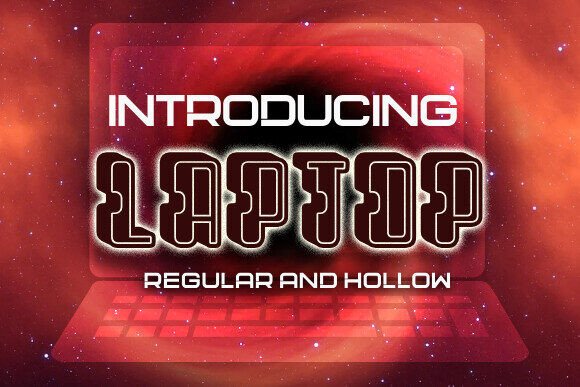
Transform Your Visuals with Laptop: The Ultimate 3D Font for Bold Designs
In the crowded landscape of digital and print media, typography is often the first element that captures a viewer's attention. While standard typefaces serve their purpose in body text, headlines and branding require something more dynamic to stand out. This is where Laptop comes into play. As an awesome 3D font, Laptop offers a unique blend of retro-futuristic charm and modern solidity, making it an ideal choice for designers looking to elevate their projects. Whether you are crafting eye-catching posters, vibrant flyers, or custom t-shirts, this typeface brings a depth and texture that flat fonts simply cannot achieve.
The Distinctive Character of the Laptop Typeface
What sets Laptop apart from other three-dimensional typefaces is its specific aesthetic approach. Unlike generic 3D fonts that can sometimes look cartoonish or overly exaggerated, Laptop strikes a balance between industrial strength and playful creativity. The design features thick, blocky letterforms that appear to pop off the page, creating an immediate sense of volume. This visual weight makes it incredibly effective for short phrases, logos, and titles where impact is paramount.
The geometry of the font is carefully constructed to ensure legibility even when rendered in complex environments. The extrusion effects used in Laptop mimic the look of physical objects, giving the text a tangible quality. When you apply this font to a design, it feels less like a digital overlay and more like a physical object placed within the composition. This characteristic is particularly valuable in industries that rely on tactile imagery, such as gaming, streetwear, and tech marketing.
Why Depth Matters in Modern Typography
In a world dominated by screens, the illusion of depth has become a powerful tool for engagement. Flat design trends have evolved, and there is a renewed appreciation for skeuomorphic elements—designs that imitate real-world materials. Laptop fits perfectly into this resurgence. By adding shadows, highlights, and perspective, the font guides the eye and creates a focal point. It breaks the monotony of two-dimensional layouts, inviting the viewer to interact with the content on a deeper level.
Furthermore, the 3D nature of Laptop allows for creative lighting effects. Designers can manipulate how light hits the letters to convey different moods. A sharp, high-contrast lighting setup can make the font look aggressive and bold, suitable for action-oriented campaigns. Conversely, softer lighting can give the same font a more approachable, friendly vibe. This versatility ensures that Laptop is not limited to a single genre but can adapt to various brand identities.
Practical Applications: From Posters to Apparel
The true test of any typeface lies in its application across different mediums. Laptop shines in several key areas, proving itself to be a versatile asset in a designer's toolkit. Its robust structure holds up well regardless of the scale, making it suitable for everything from small social media graphics to large-scale billboards.
Creating Impactful Posters and Flyers
Posters and flyers are often the backbone of event promotion and local advertising. In these formats, the goal is to communicate a message instantly. Laptop excels here because its 3D form naturally draws the eye. Imagine a concert poster where the band name is rendered in Laptop, appearing to float above a gritty background. The dimensionality adds energy and excitement, suggesting that the event itself will be immersive and larger than life.
For flyers, the font works exceptionally well for headlines and call-to-action sections. Because the letters are so distinct, they remain readable even when printed on textured paper or viewed from a distance. Designers often pair Laptop with minimalistic backgrounds to let the typography take center stage. This approach reduces visual clutter while maximizing impact, ensuring that the most important information—the event date, location, or offer—is impossible to miss.
Elevating T-Shirt Designs
Apparel design presents a unique set of challenges. Text on fabric must look good when folded, stretched, and viewed from various angles. Laptop is an excellent choice for t-shirts because its bold strokes translate beautifully to screen printing and embroidery. The 3D effect gives the design a premium feel, moving away from the cheap look of simple vinyl transfers.
When used on t-shirts, Laptop can create a sense of movement and texture that mimics raised puff paint or embroidered patches. This is particularly popular in streetwear culture, where oversized, dimensional lettering is a staple. Designers can experiment with color gradients on the font to simulate metallic finishes, such as chrome or gold, adding a touch of luxury to casual wear. Whether it's a limited edition drop for a clothing brand or a fun design for a school fundraiser, Laptop ensures the garment stands out in a crowd.